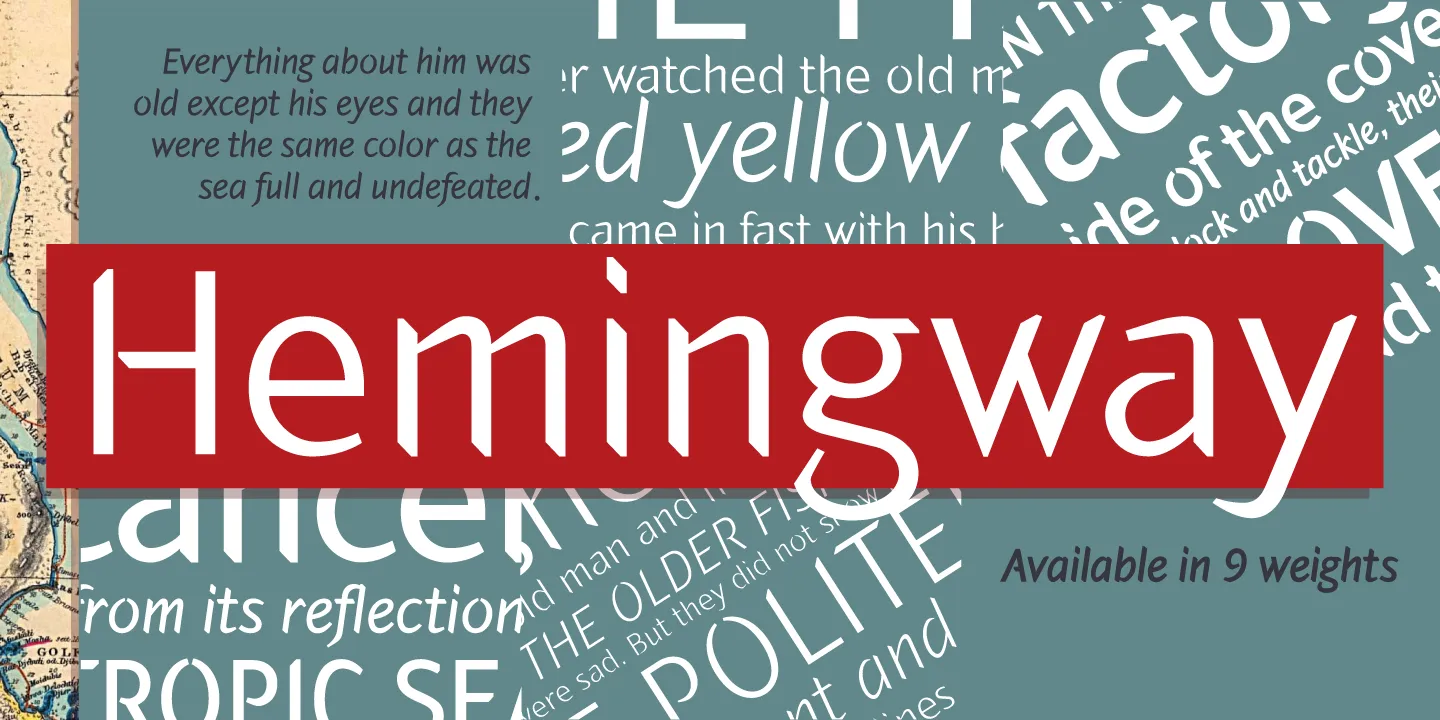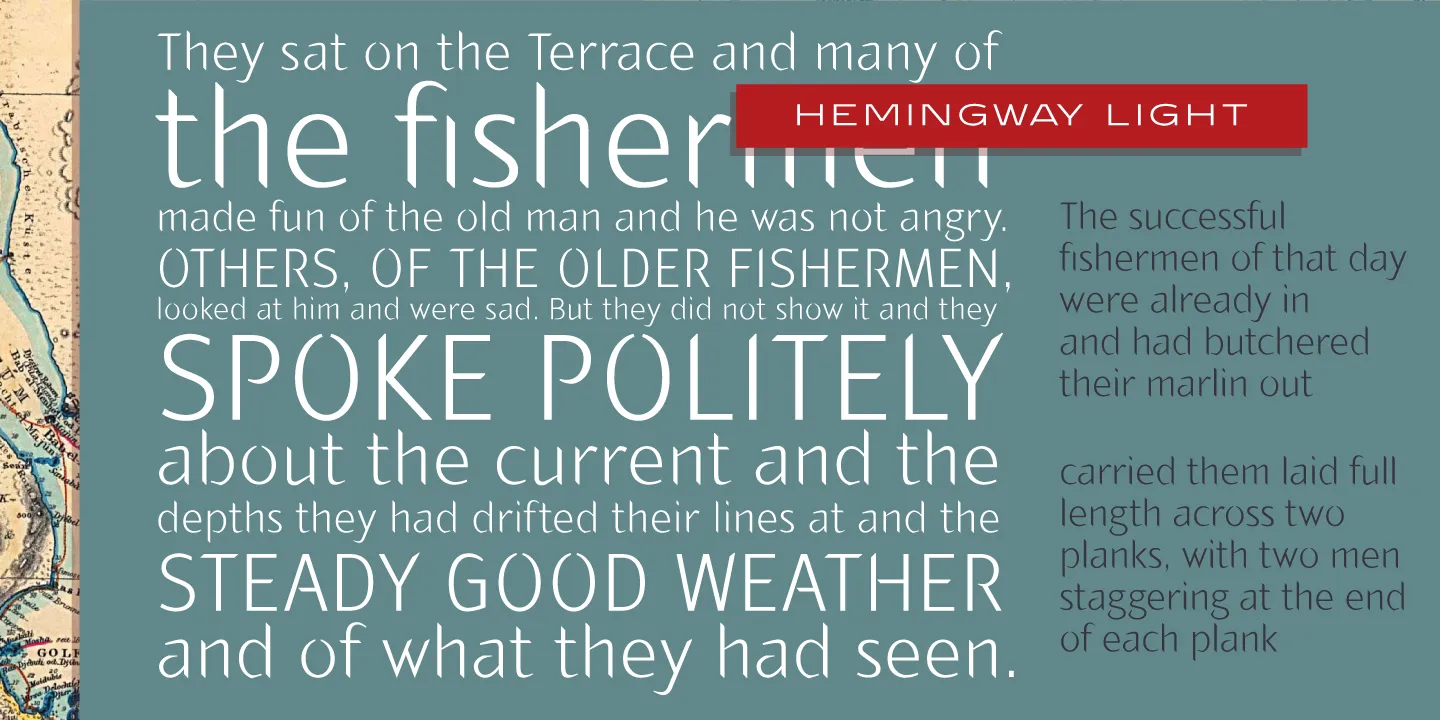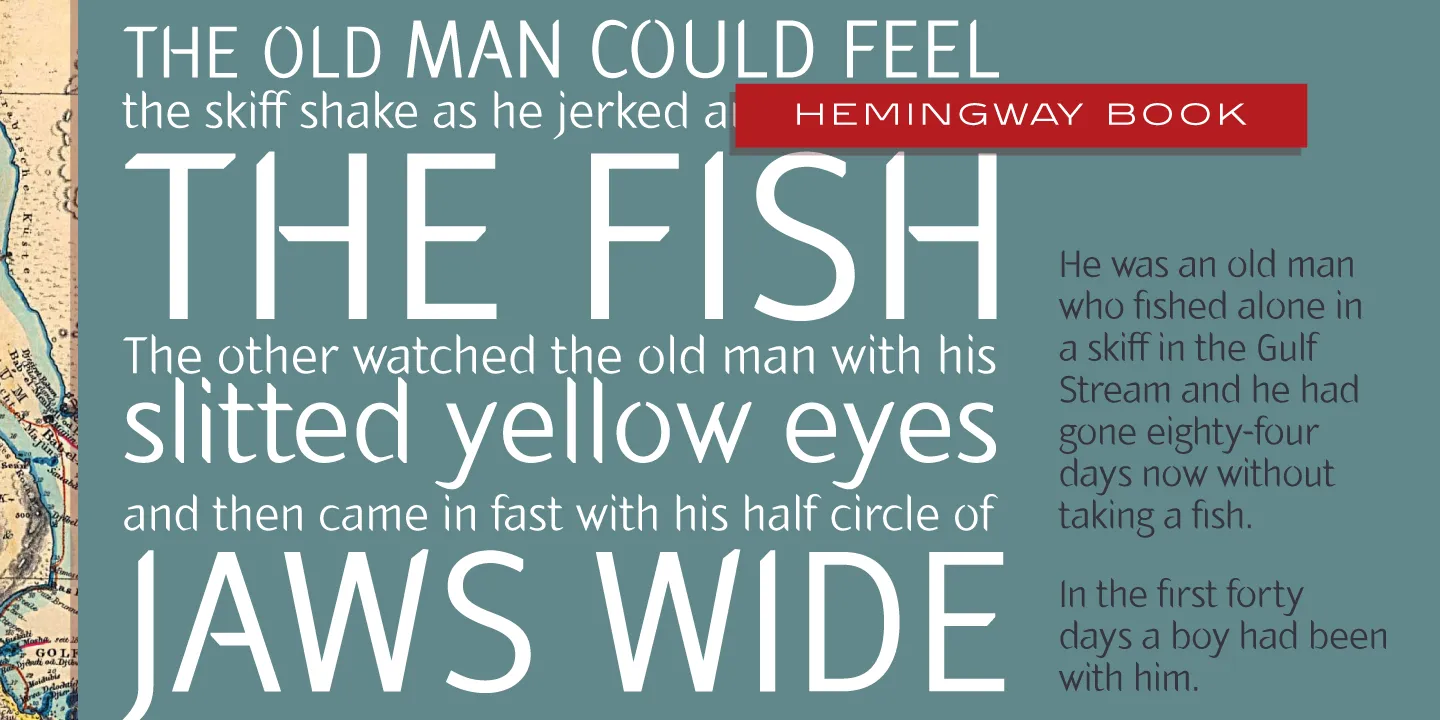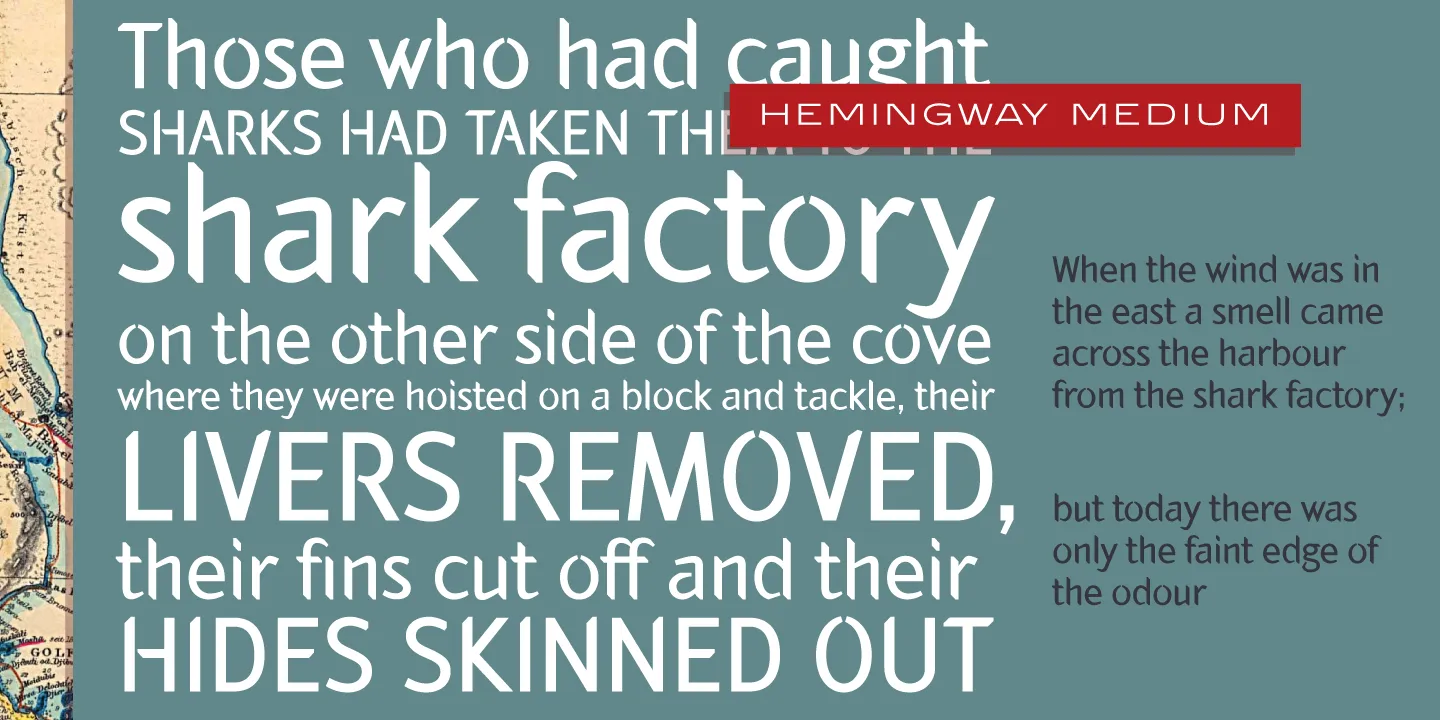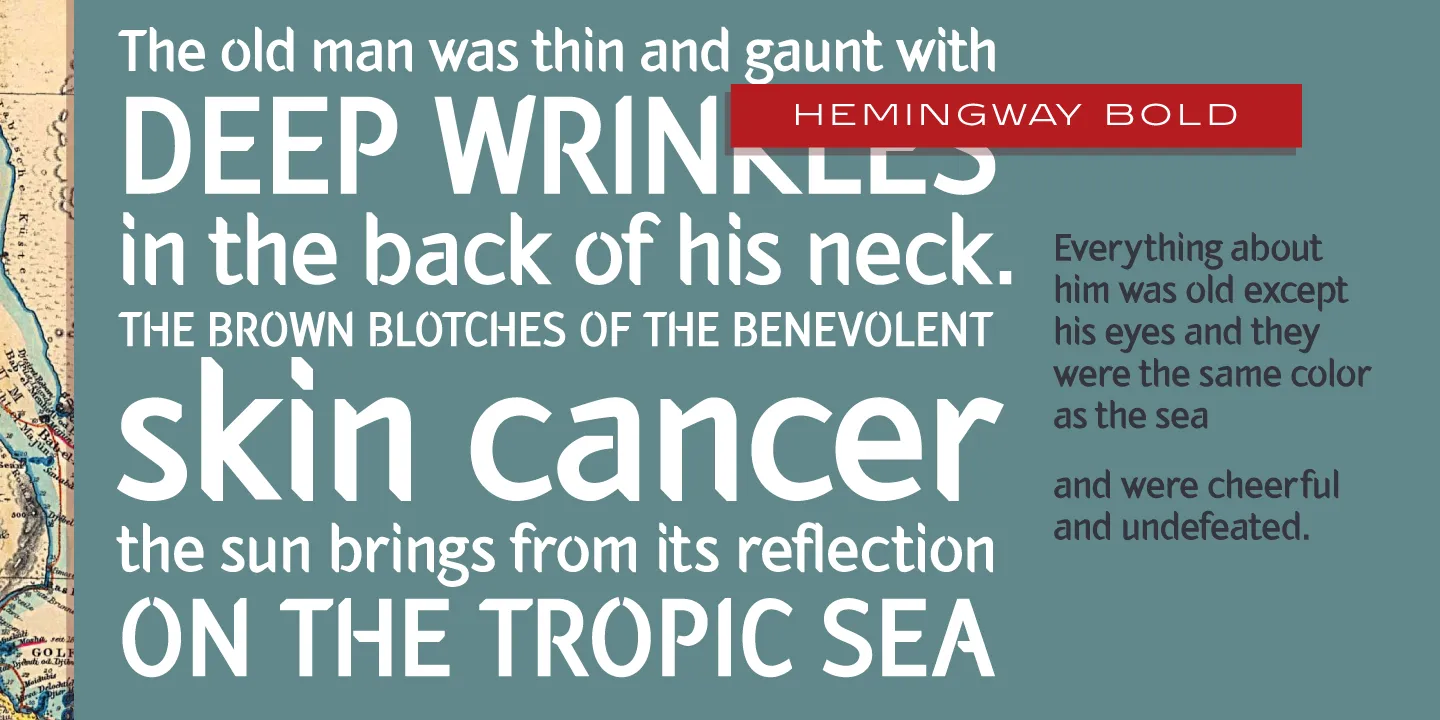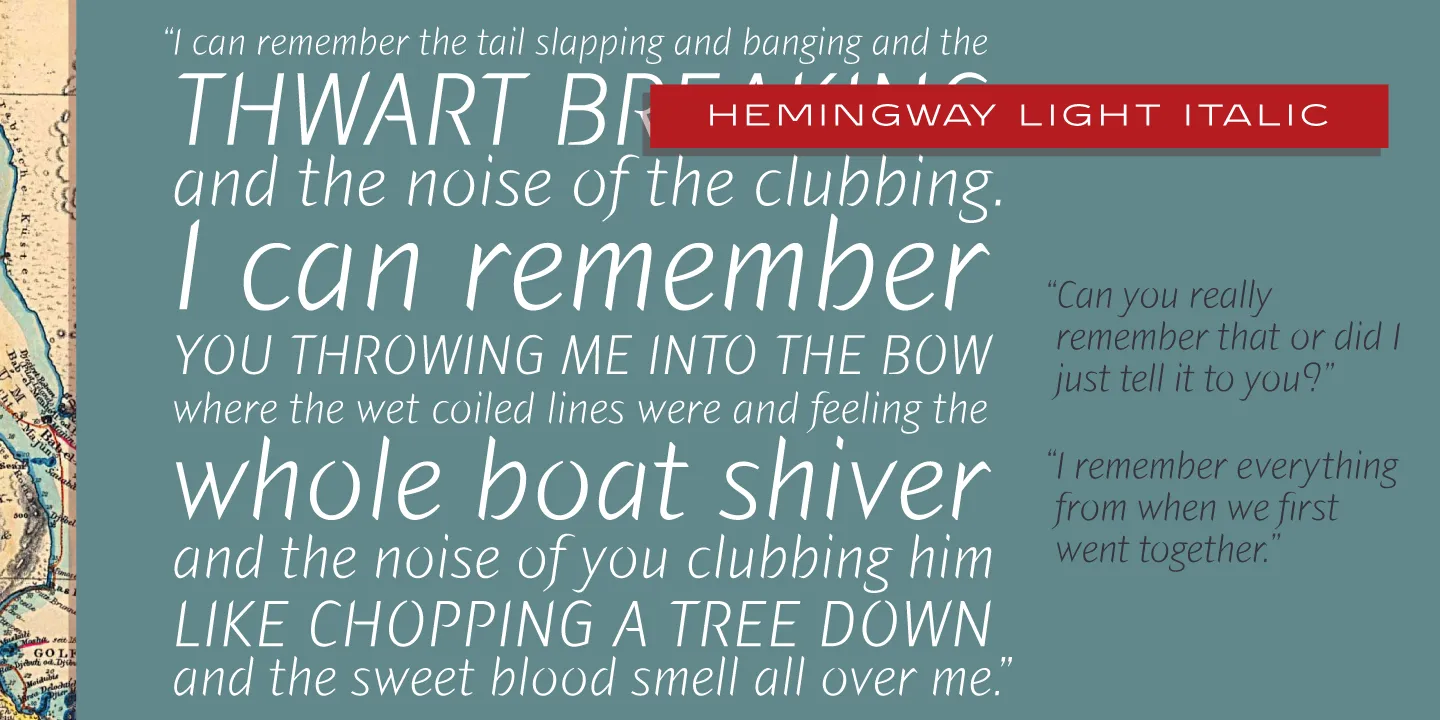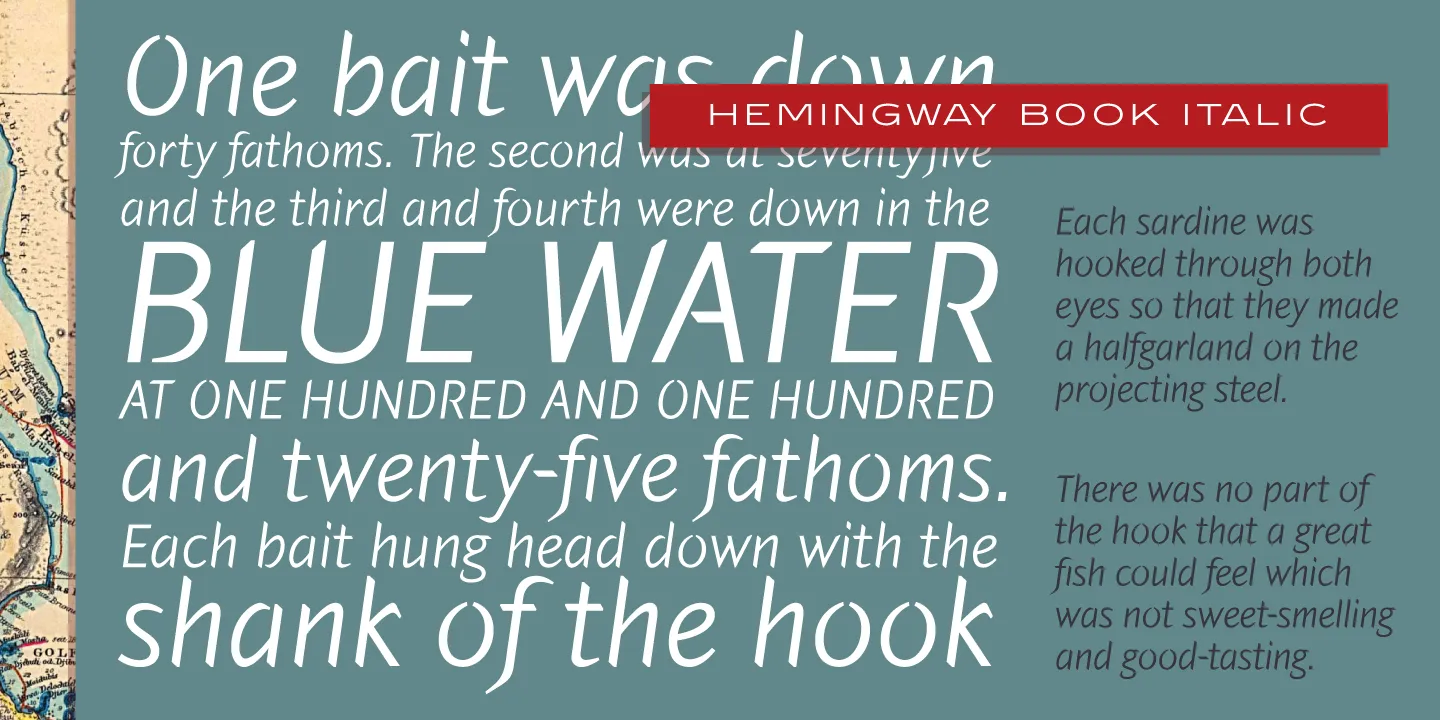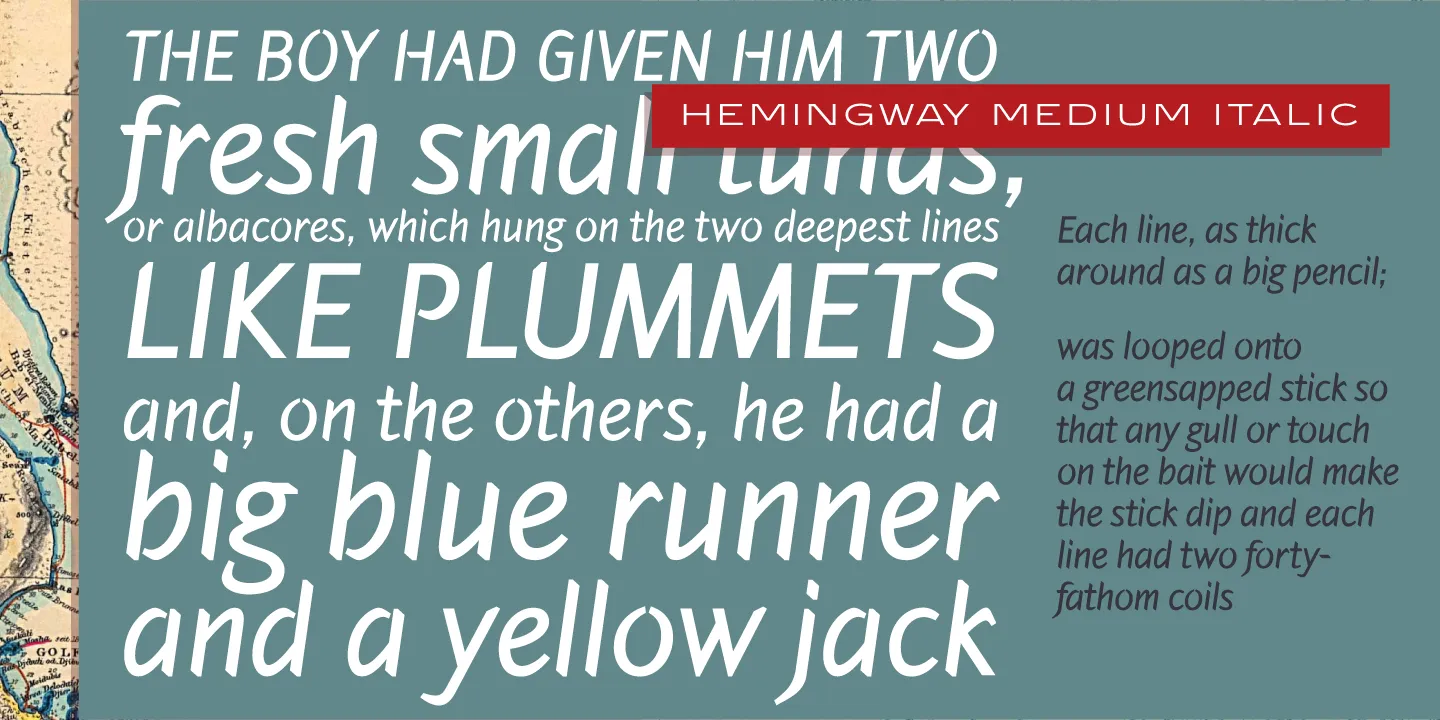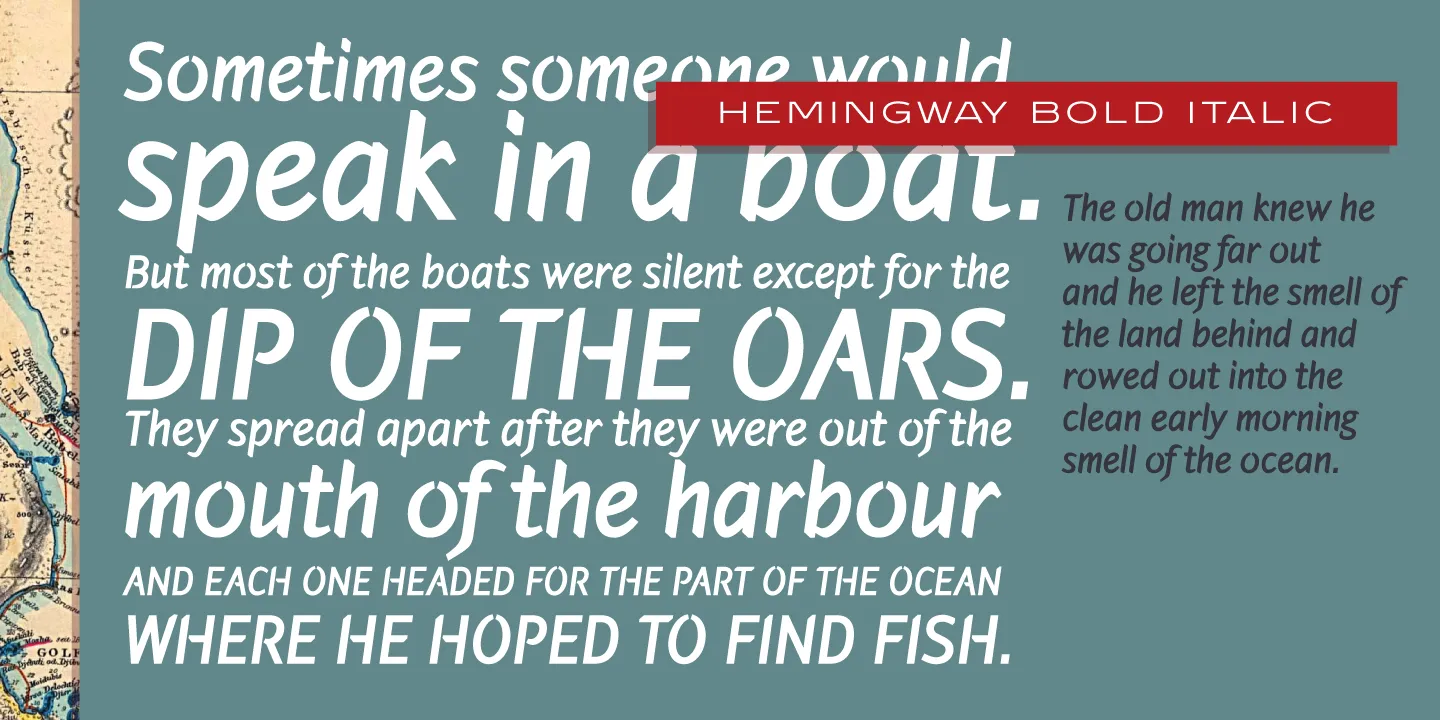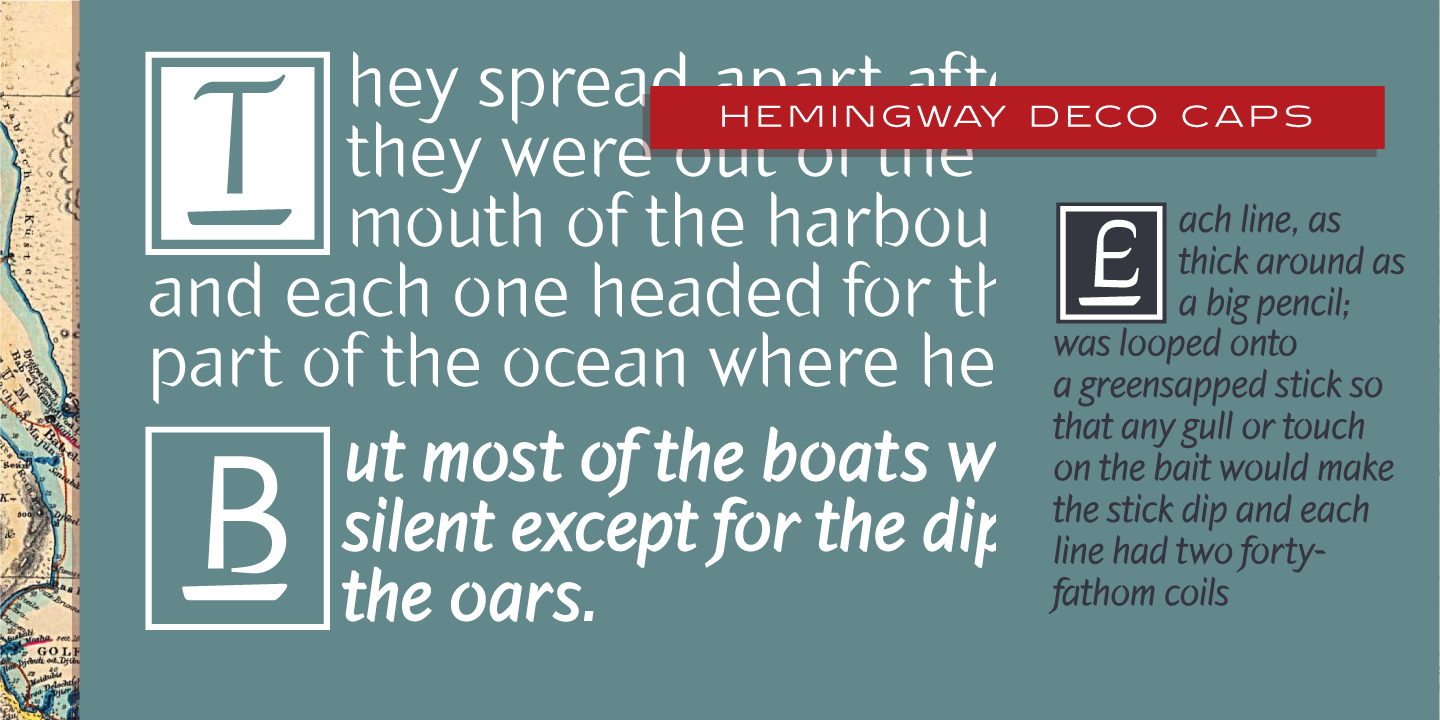
Hemingway New Style Font Family
Hemingway is an eight-weight sans serif font family designed by Alessandro Segalini and digitally engineered by Steve Jackaman (ITF) exclusively for the Red Rooster Collection in 2009. Segalini was inspired by the prize-winning novel “The Old Man and the Sea” by Ernest Miller Hemingway. The typeface was designed with a visual mixture of sharpness and harshness but shows soft and gentle hints — much like the qualities of the ocean in Hemingway’s novel. Hemingway’s unique inclusion of angular and sharp terminals mixed with the calligraphic nature of its italic weights gives it an antique, worn look as if carved into wood with a knife. It is excellent for announcements, invitations, literature, and more.
OpenType Features
• Common Ligatures
• Fractions
• Old Style Numerals
• Ordinal Numerals
• Subscript
• Superscript